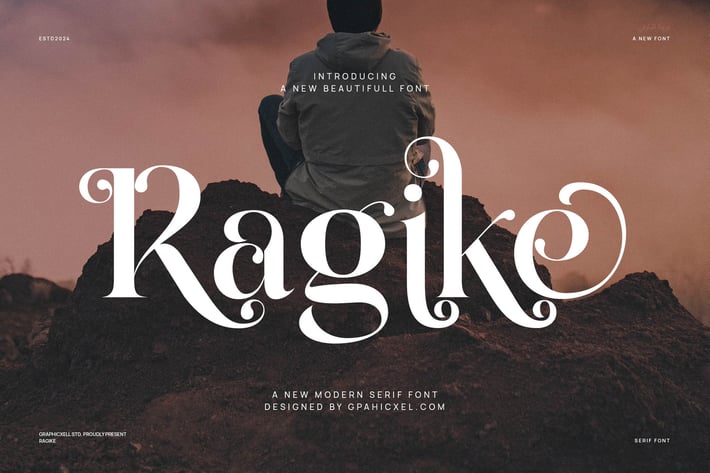
Ragike Elegant Ligature Typeface
Ragike Ligature Typeface is a modern serif typeface that offers a fashionable touch. It doesn’t only look sophisticated but also charming. What makes it interesting is the delicate curves, bringing an elegant style. The classy ligature also becomes one of its characteristics and appeals. With calligraphic influences, this font gives a contemporary feeling. So, it is perfect for various designs such as beauty designs, elegant crafting, layout designs, ad branding, design templates, etc. Whatever the project you are doing, the RagikeLigature Typeface creates a modern, beautiful design. Whether it is for personal or commercial use, this font can meet your purposes well. The strokes are also very smooth. Besides that, the line thickness plays a big role in creating a sophisticated look. If you want to bring your graphic design project to the highest level, the Ragike Ligature Typeface will give a big help. You will surely fall in love with this font.